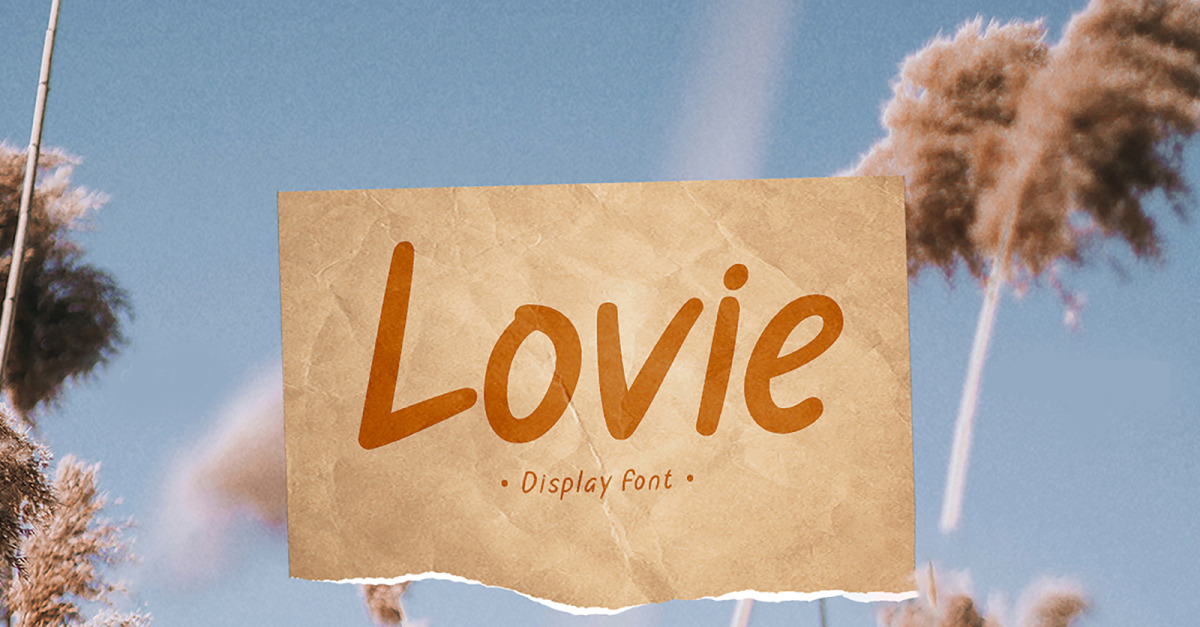
Lovie - Beautiful Display Font
Lovie - Display Font.
Lovie is a display style font, this font is perfect for watermarks, stationery, advertisements, product packaging, product designs, labels, photography, logo, special events, and more.
- Uppercase Characters
- Lowercase Characters
- Punctuation, Numerical
- Multilingual support for various languages including: French, German, Spanish, Portuguese, Italian, Dutch, Finnish, Swedish, and more.